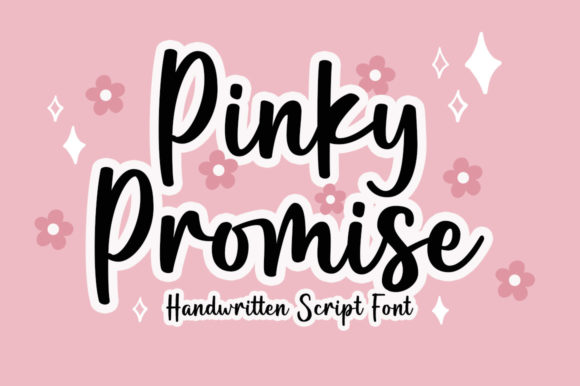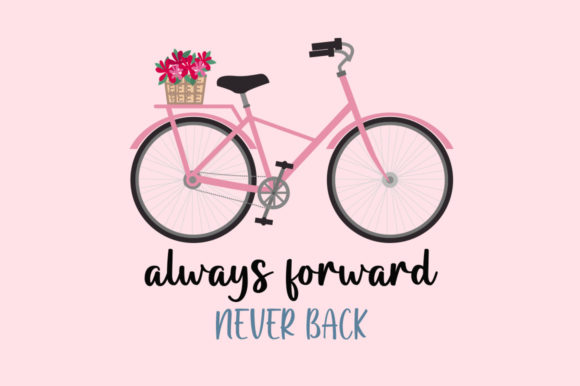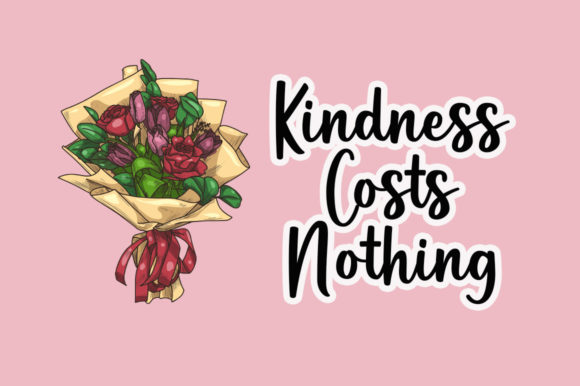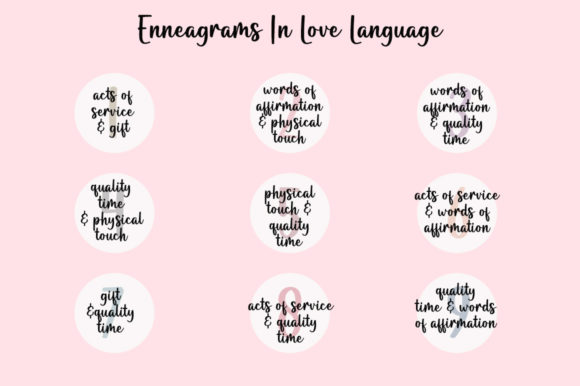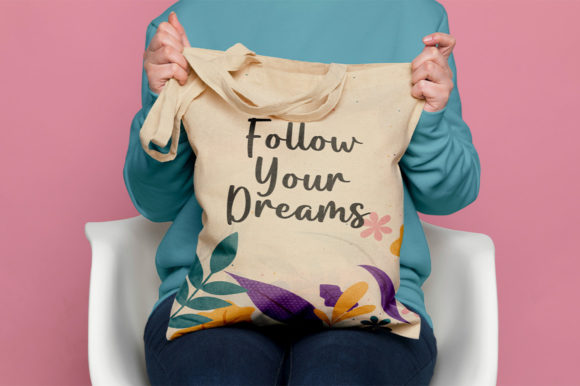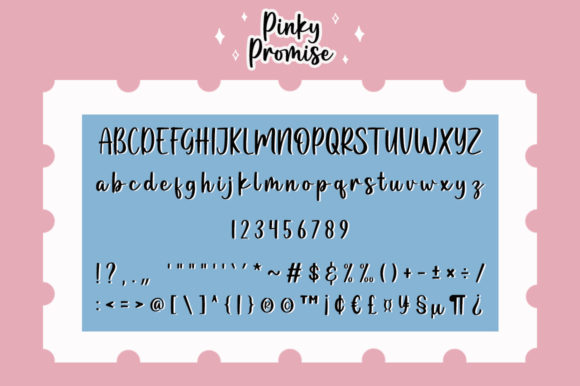
Pinky Promise Font
About Pinky Promise Font
Pinky Promise is a dainty and flowing handwritten font.
Sweet and joyful, this font will be ideal for writing wedding invitations, cards or any other design that may need a romantic, personalized touch!